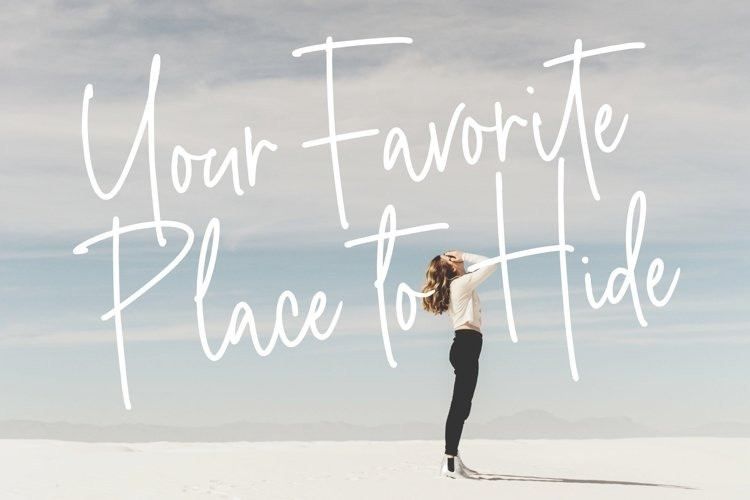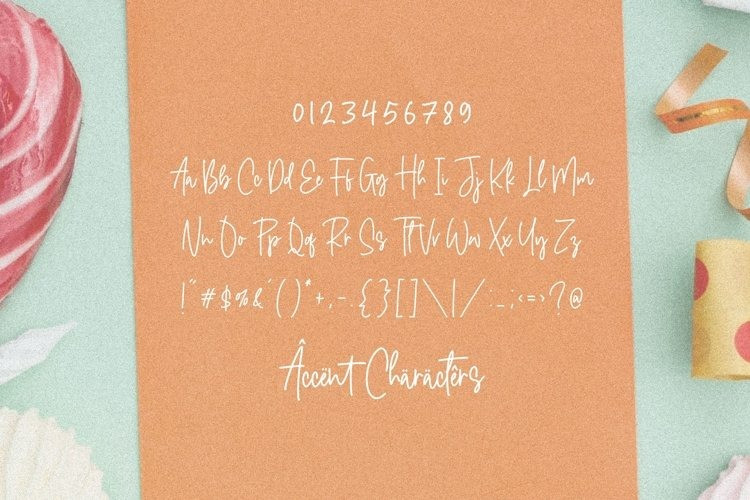
Anton Charlote Script Font
Anton Charlote is a retro script font that combines classic with modern elements. It is perfect for badges, logos, t-shirt, posters, branding, packaging, signage, book cover and so much more! This font is PUA encoded which means you can access all glyphs and swashes with ease!